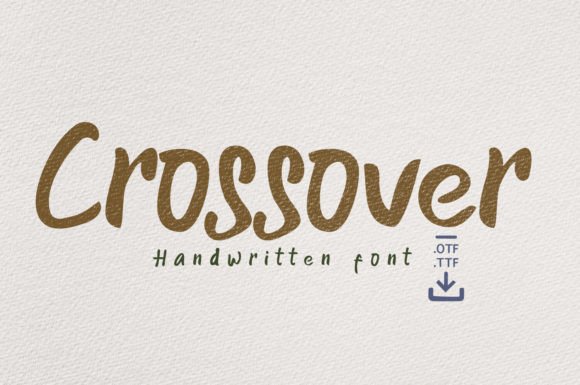
Crossover Font: The Ultimate Guide to a Fun and Friendly Marker Handwritten Font
Are you looking for a font that can add a touch of personality to your designs? Look no further than the Crossover Font. This marker handwritten font is perfect for creative designs like posters, cards, or logos, and is sure to give your text a fun and friendly feel. In this article, we’ll take a closer look at the Crossover Font, its features, and how you can use it to take your designs to the next level.
What is Crossover Font?
Crossover Font is a marker handwritten font that looks like it was drawn with a thick pen. Its letters are bold, casual, and easy to read, making it perfect for designs where you want to make a statement. The font has a unique, hand-drawn feel that gives it a personal touch, making it ideal for creative designs like posters, cards, or logos.
Key Features of Crossover Font
So, what makes Crossover Font so special? Here are some of its key features:
- Bold and Casual Letters: The letters in Crossover Font are bold and casual, making them easy to read and perfect for designs where you want to make a statement.
- Marker Handwritten Style: The font has a unique, marker handwritten style that gives it a personal touch.
- Easy to Read: Despite its bold and casual style, Crossover Font is easy to read, making it perfect for designs where you want to communicate a message.
- Fun and Friendly Feel: The font has a fun and friendly feel that makes it perfect for creative designs like posters, cards, or logos.
Uses of Crossover Font
So, what can you use Crossover Font for? Here are some ideas:
- Posters: Crossover Font is perfect for posters, where you want to make a statement and grab people’s attention.
- Cards: The font is also great for cards, where you want to add a personal touch and make the recipient feel special.
- Logos: Crossover Font can be used to create fun and friendly logos that reflect the personality of your brand.
- Social Media Graphics: The font is also perfect for social media graphics, where you want to create engaging and shareable content.
Tips for Using Crossover Font
Here are some tips for using Crossover Font:
- Use it for Headlines: Crossover Font is perfect for headlines, where you want to make a statement and grab people’s attention.
- Pair it with Other Fonts: The font can be paired with other fonts to create a unique and interesting design.
- Experiment with Colors: Crossover Font looks great in a variety of colors, so don’t be afraid to experiment and find the perfect color for your design.
In conclusion, Crossover Font is a fun and friendly marker handwritten font that’s perfect for creative designs like posters, cards, or logos. Its bold, casual letters and unique, hand-drawn feel make it a great choice for designers who want to add a personal touch to their designs. With its ease of use and versatility, Crossover Font is a great addition to any designer’s toolkit.
- What is Crossover Font?: Crossover Font is a marker handwritten font that looks like it was drawn with a thick pen.
- Is Crossover Font easy to read?: Yes, Crossover Font is easy to read, despite its bold and casual style.